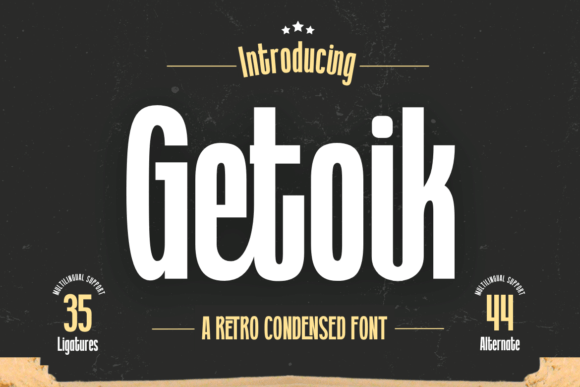
Looking for the best font for your Christmas poster? Look no further than Getoik Font, the ultimate retro condensed font from twinletter. With its clean lines and smooth edges, Getoik is the perfect addition to any design project. This font family is sans-serif, making it a great choice for modern and minimalist designs.
What sets Getoik apart is its attention to detail and versatility. Whether you're designing a holiday poster, branding materials, or a website, Getoik's amazing glyphs and ligatures will make your work stand out from the crowd. Plus, with PUA encoding, accessing all of these features is easier than ever.
But what really makes Getoik special is the emotional connection it creates with your audience. Its retro style invokes feelings of nostalgia and warmth, making it perfect for holiday designs. And its condensed form gives your designs a sense of urgency and importance, making them impossible to ignore.